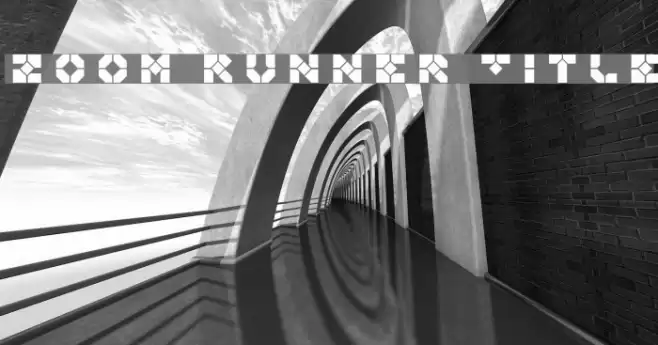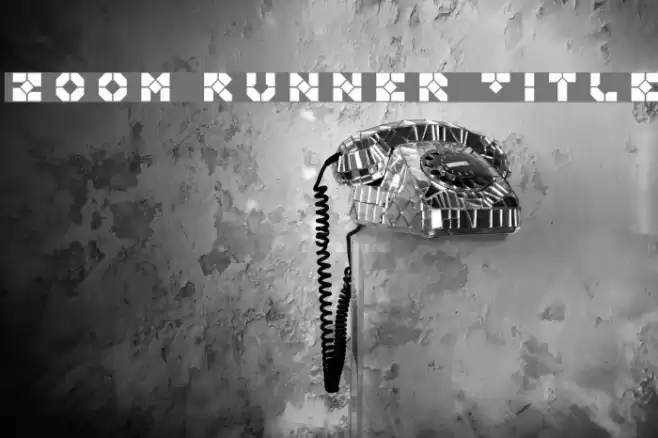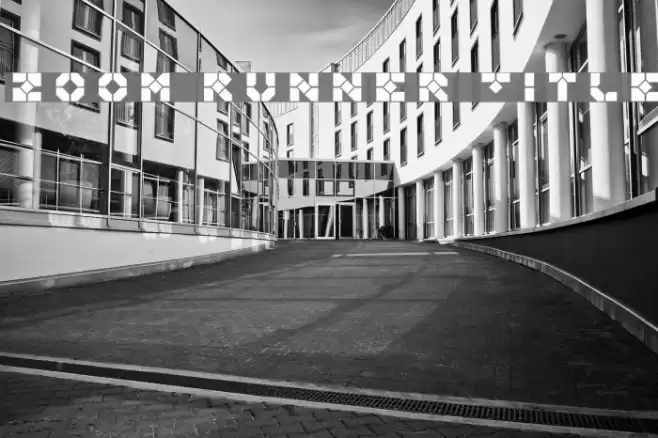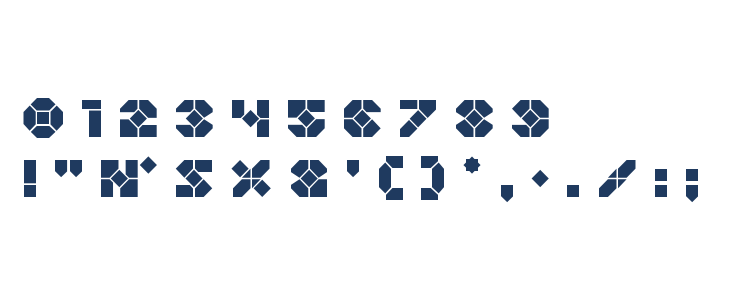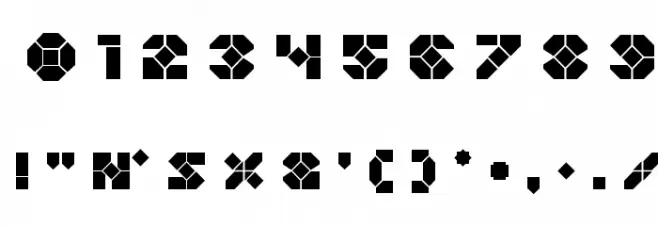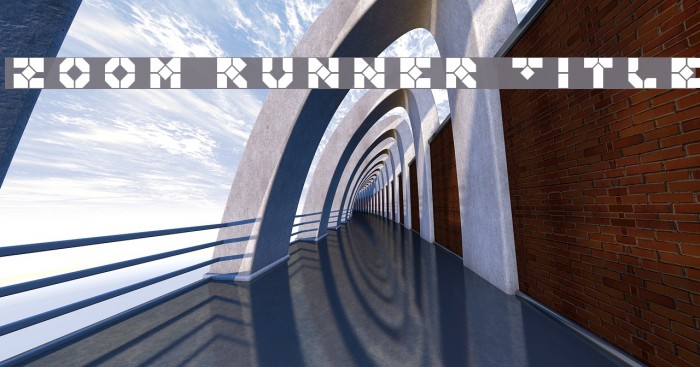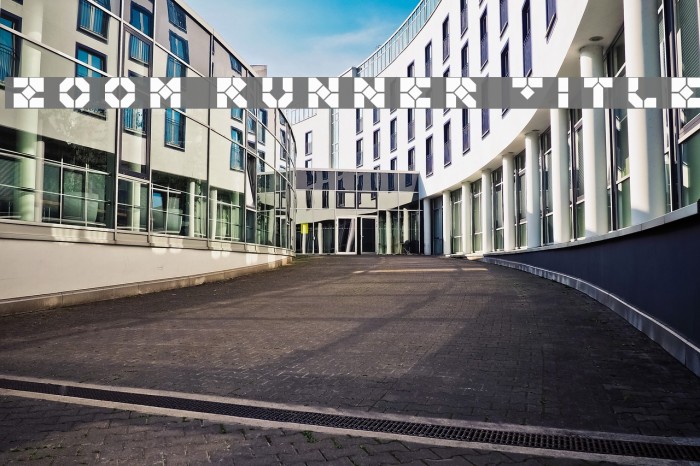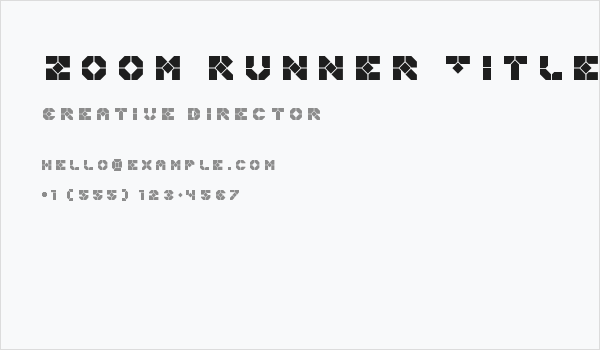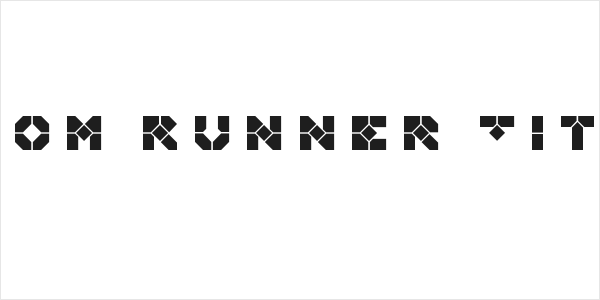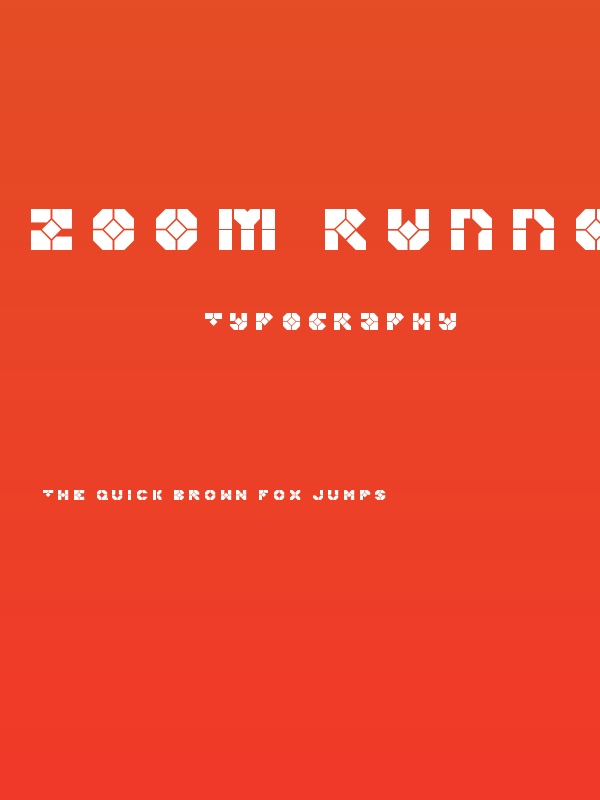
Zoom Runner Title Font
Zoom Runner Title Description
This font features a bold, geometric design with a futuristic and digital aesthetic. Each character is constructed from a series of interconnected shapes, giving it a blocky, pixelated appearance. The uppercase and lowercase letters share a similar structure, maintaining consistency across the alphabet. Numbers and special characters are designed with the same geometric style, ensuring a cohesive look. The font's unique style makes it stand out, ideal for projects that require a modern and tech-inspired feel.
A bold, geometric font with a futuristic, digital style from Sci-fi fonts.
- Proposed Projects: Ideal for video game titles, tech-related branding, digital art projects, and futuristic-themed posters.
- Overall Style: Futuristic, Digital